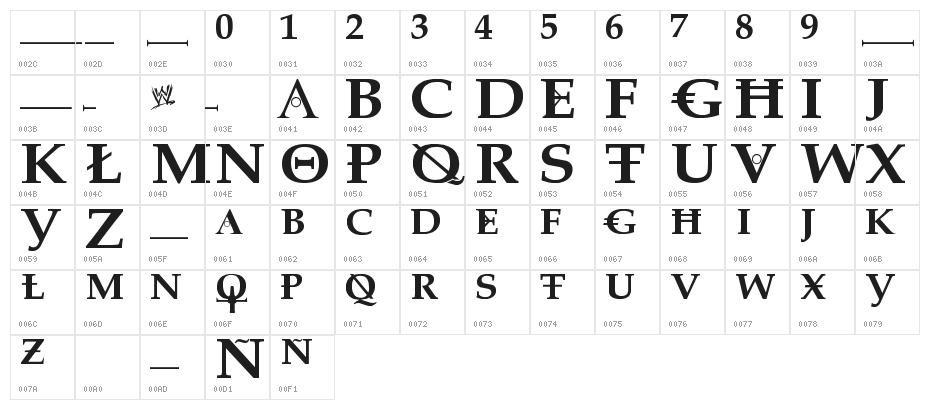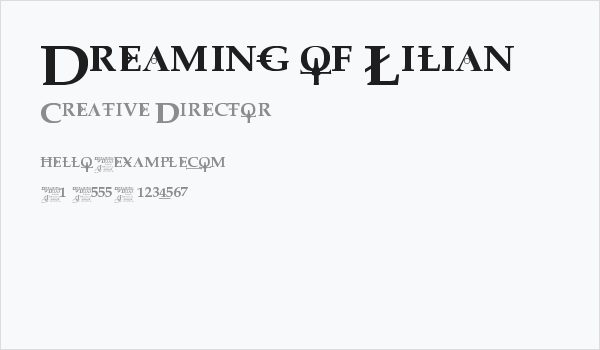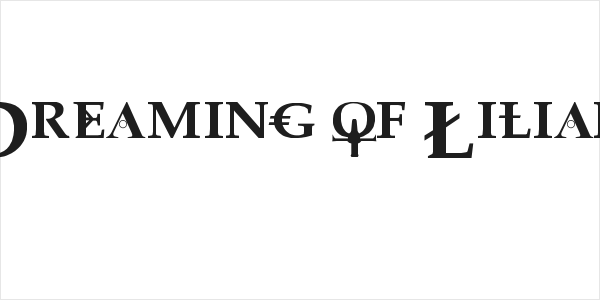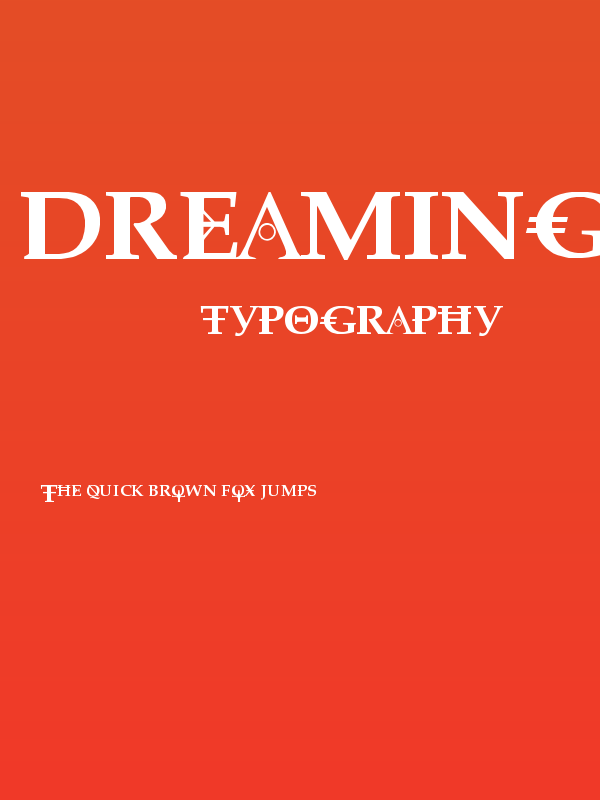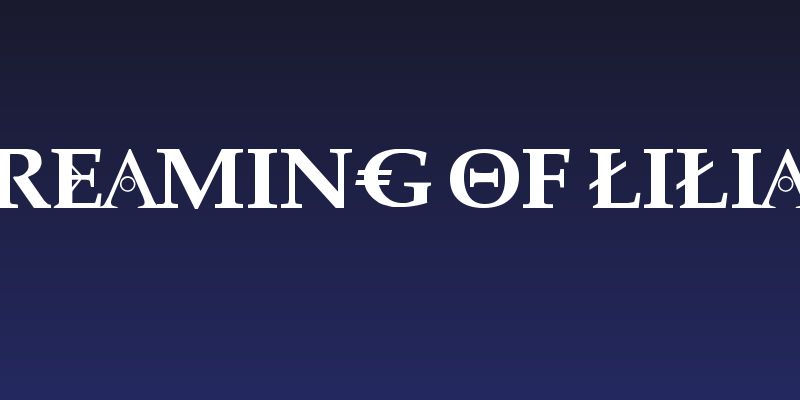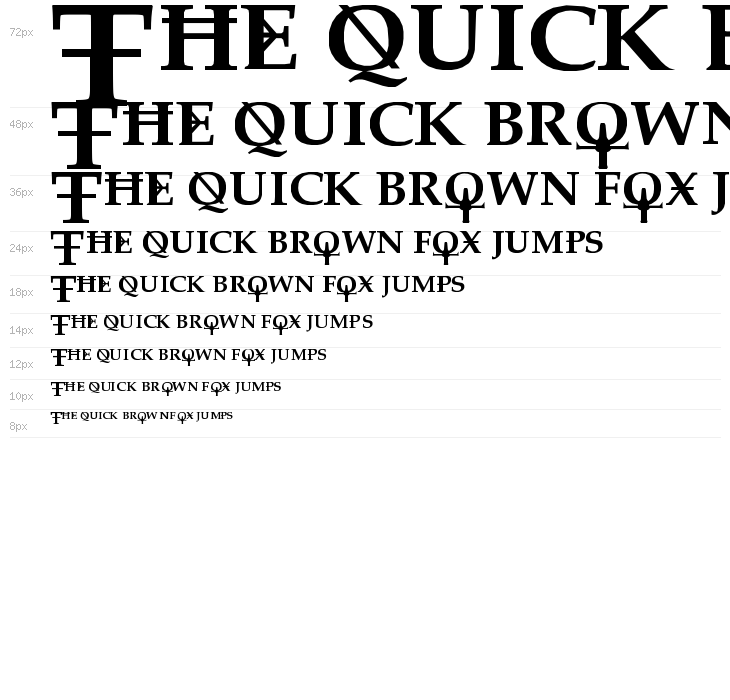
Dreaming of Lilian Font
Dreaming of Lilian Description
This font features a unique blend of classic serif elements with a modern twist. Each character is adorned with intricate details, such as small decorative lines and curves, giving it a distinctive and elegant appearance. The uppercase letters are bold and commanding, while the lowercase letters maintain a consistent style that complements the overall design. Numbers are clear and legible, making them suitable for various applications. The special characters are creatively designed, adding a touch of sophistication. This font is perfect for projects that require a touch of elegance and creativity.
| Proposed Projects | Ideal for wedding invitations, luxury branding, editorial design, and artistic posters. |